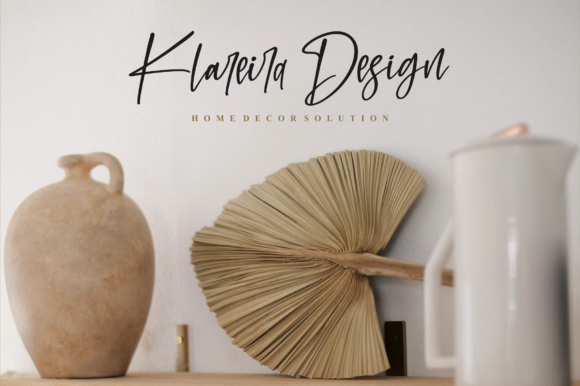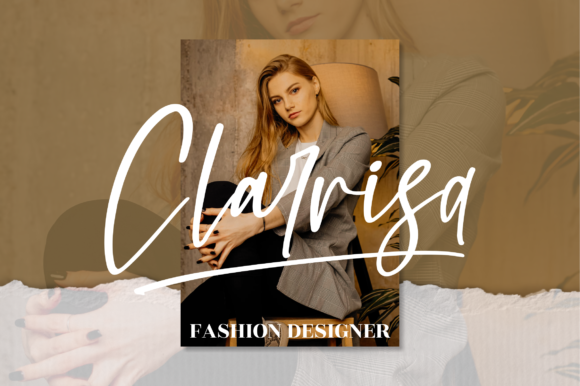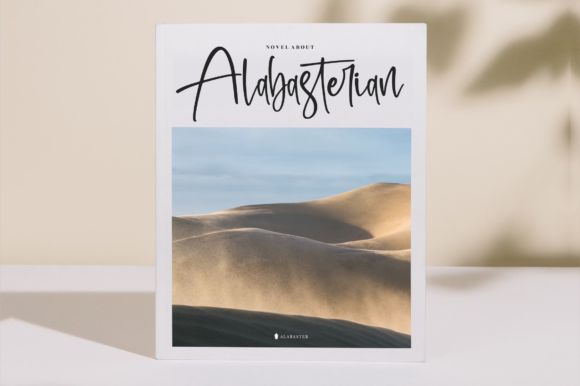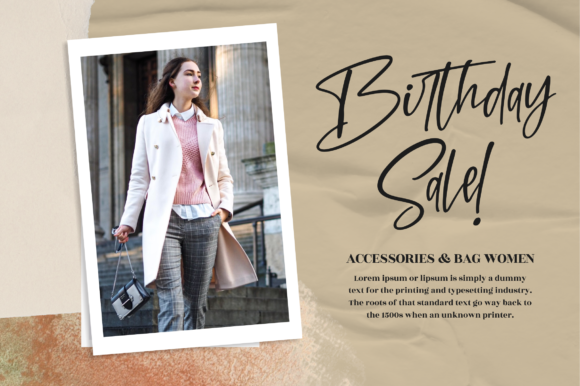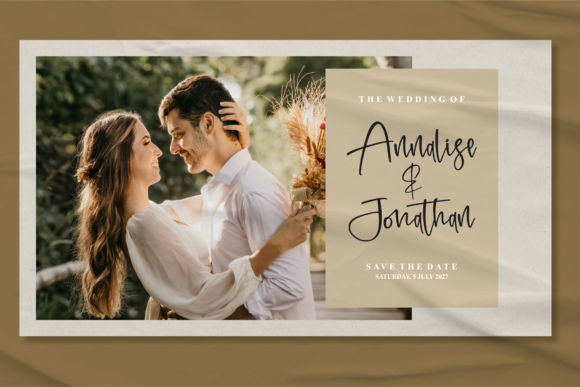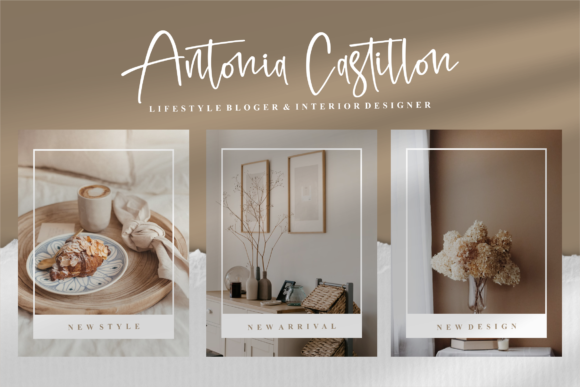
Introduction to Fitriany Font
Fitriany is a sweet and cursive handwritten font.
This gentle font will look gorgeous on a variety of design ideas This font is PUA encoded which means you can access all of the glyphs and swashes with ease.